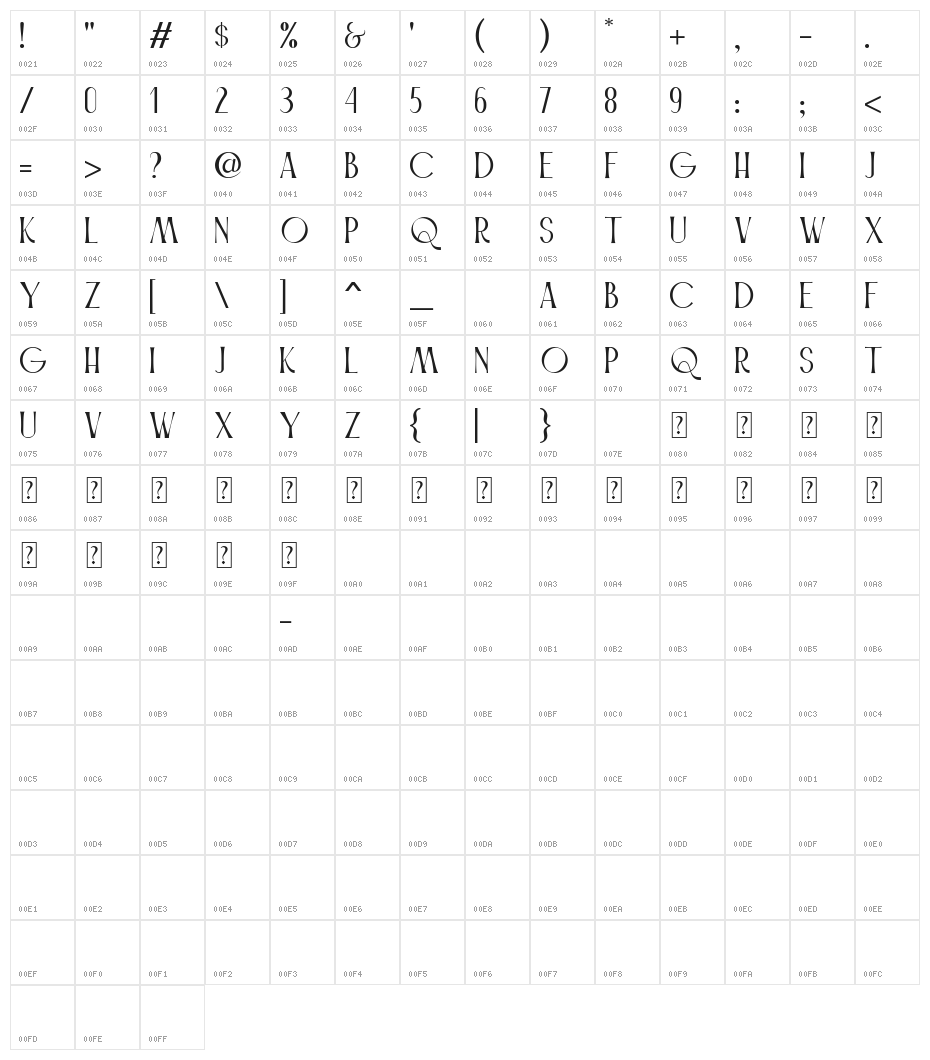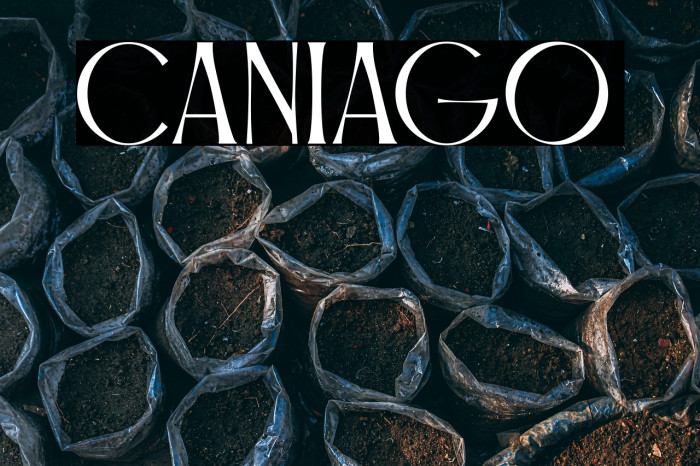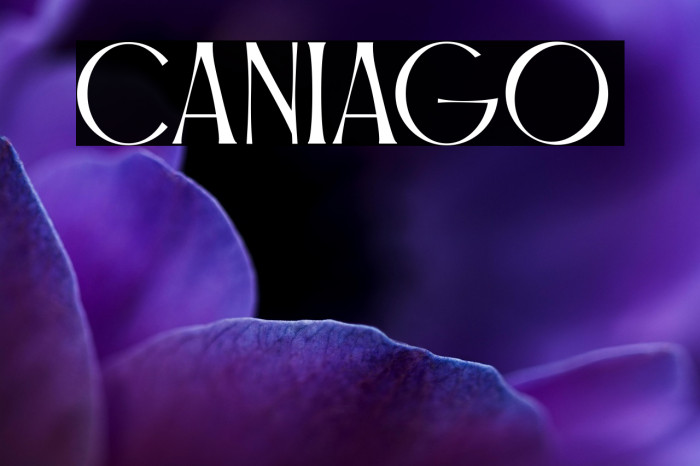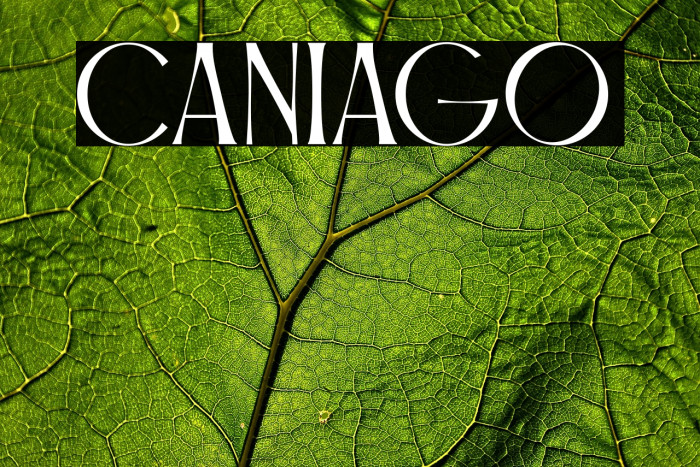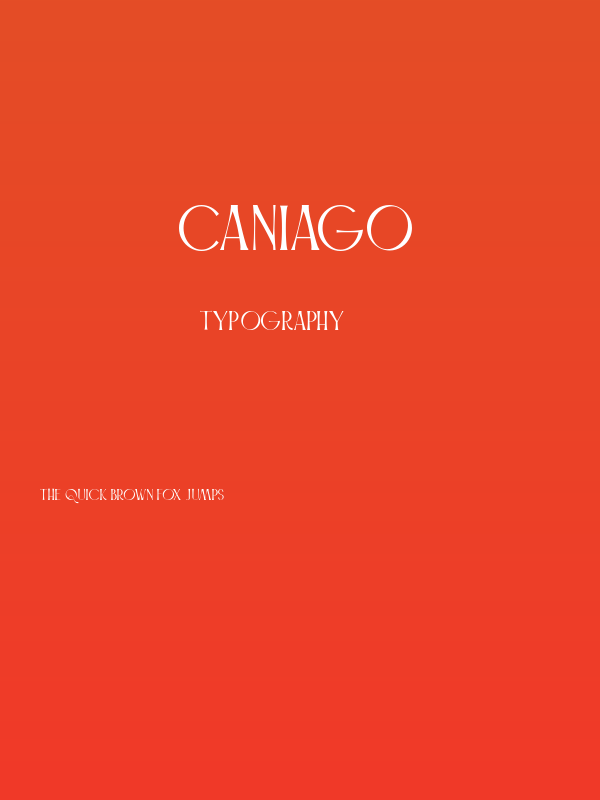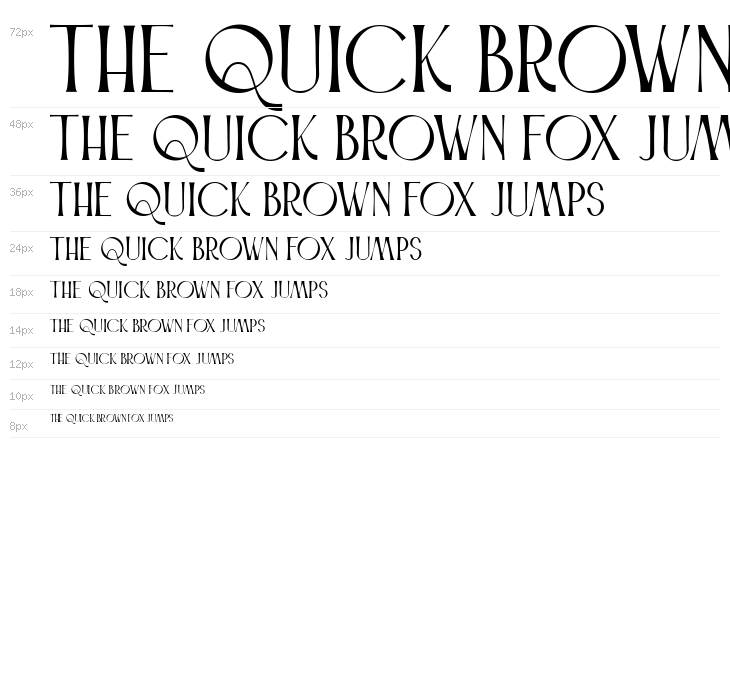
Caniago Font
Caniago Description
This font features a unique and elegant design with a modern twist. The characters are tall and slender, with a slight curvature that adds a touch of sophistication. The uppercase letters have a distinct flair, particularly noticeable in the 'Q' and 'R', which exhibit artistic loops. The numerals are consistent with the overall style, maintaining the same slender and elongated form. Special characters are crafted with the same attention to detail, ensuring a cohesive look across all glyphs. This font is ideal for projects that require a stylish and contemporary aesthetic.
| Proposed Projects | Ideal for fashion magazines, luxury branding, wedding invitations, and high-end product packaging. |